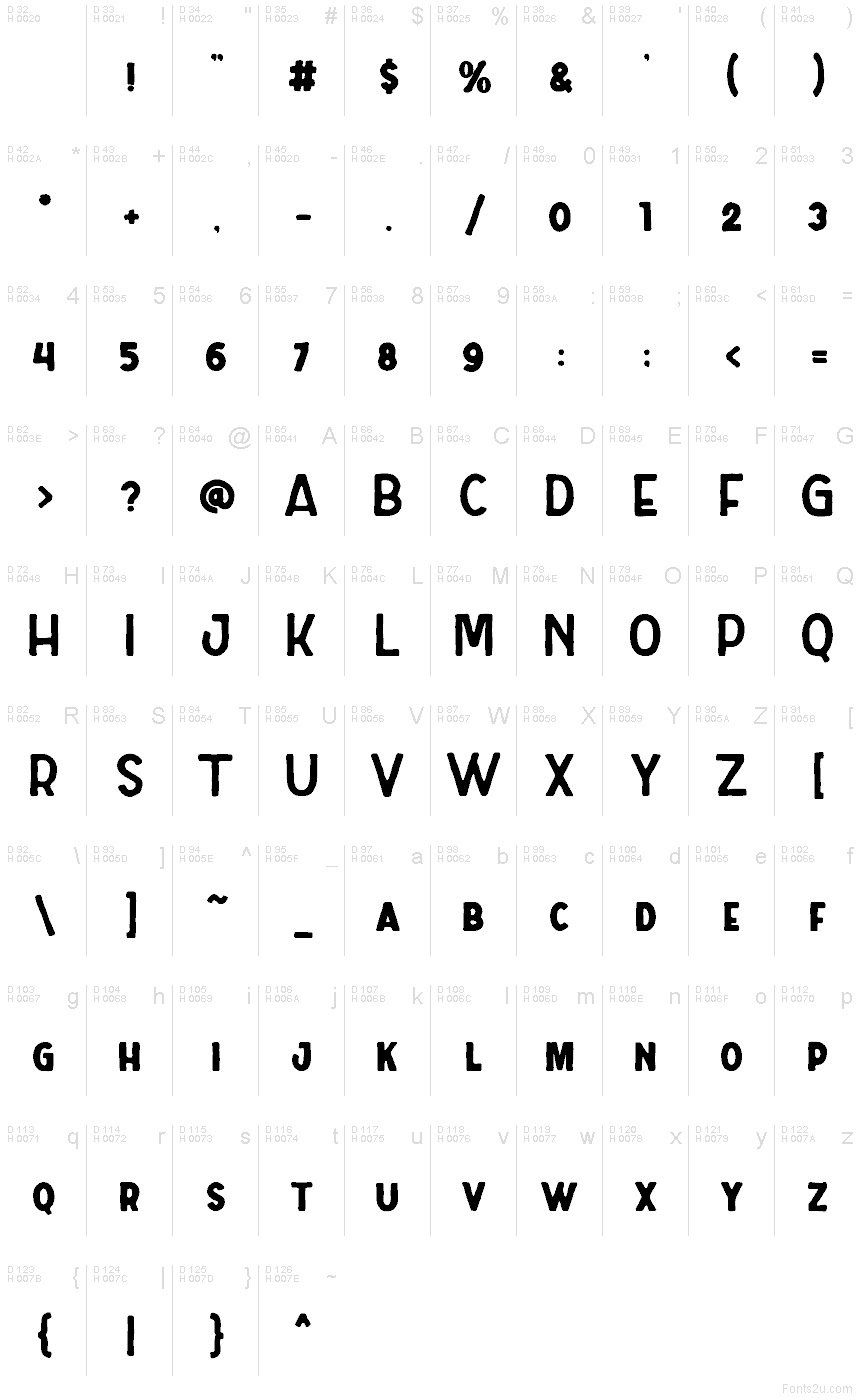
Orange Street Rough font by PutraCetol Studio is a quirky, eroded display typeface with retro vibes for casual and whimsical designs. The free rounded font’s naturally worn out characters give it an authentic vintage appeal that is filled with friendliness.
Use Orange Street Rough for children’s books, greeting cards, invitation cards, merchandise design, wall art creation, coloring books typography, t-shirt designs, apparel branding projects. Other use ideas include mug printing, phone case covers designing posters and flyers.